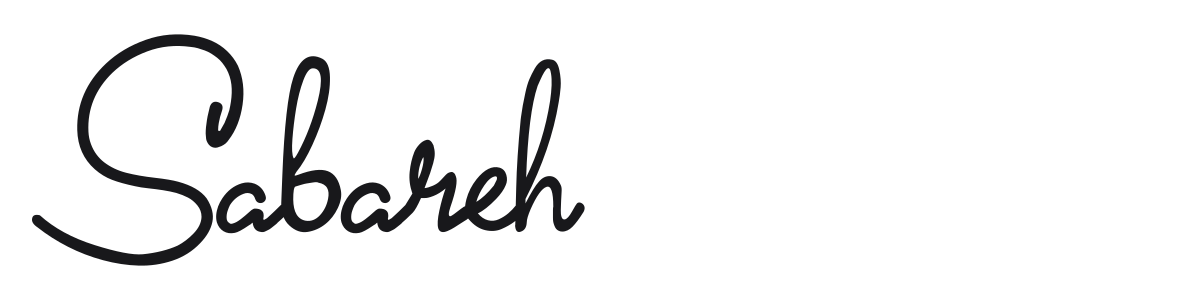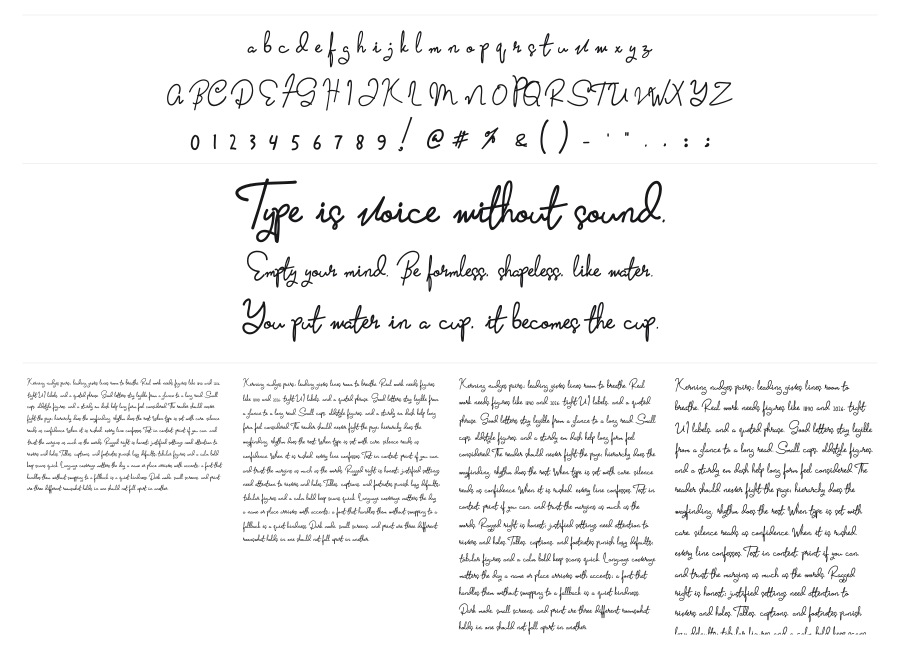
Sabareh
by Muhamad Ali Hasan
Sabareh is a casual handwritten script from Mozyen Studio with a free-flowing, pen-on-paper feel. Its connected strokes and looping letterforms carry an easy, unpretentious energy that works well for branding, packaging, and editorial headlines. Light in weight and relaxed in rhythm, it brings warmth without trying too hard.